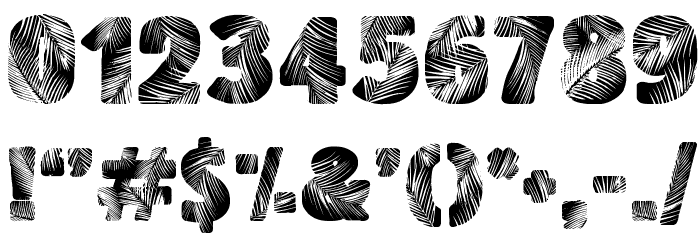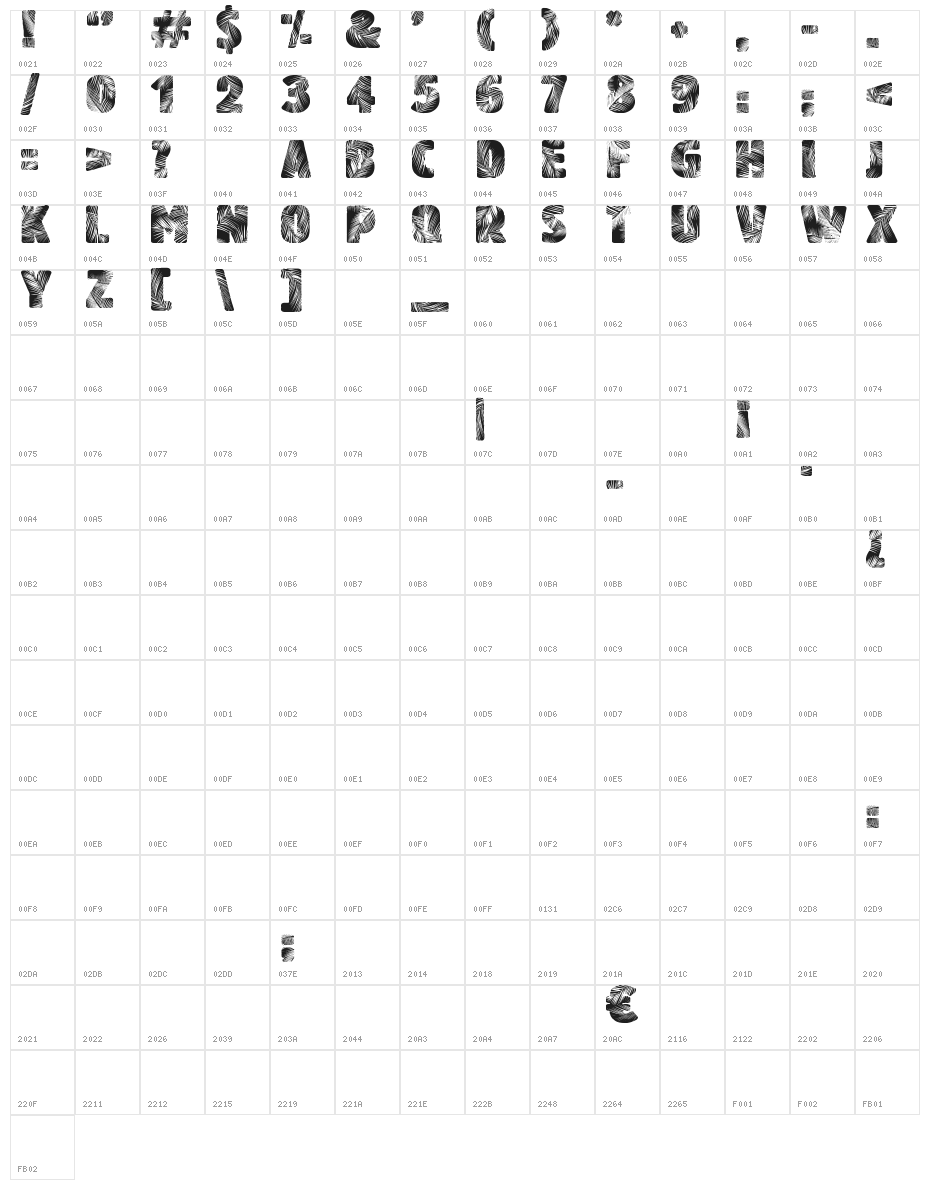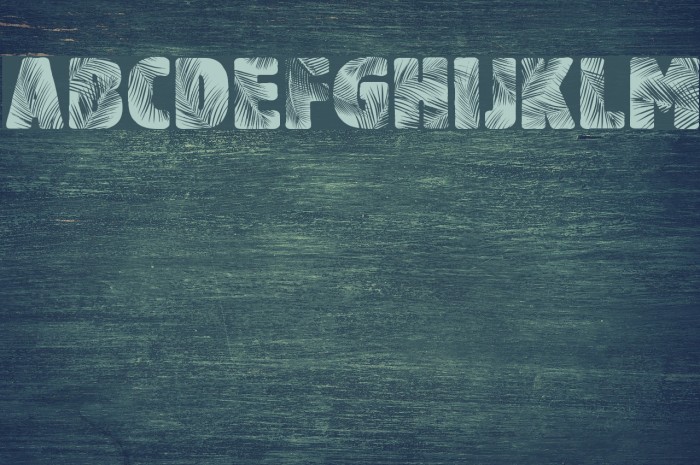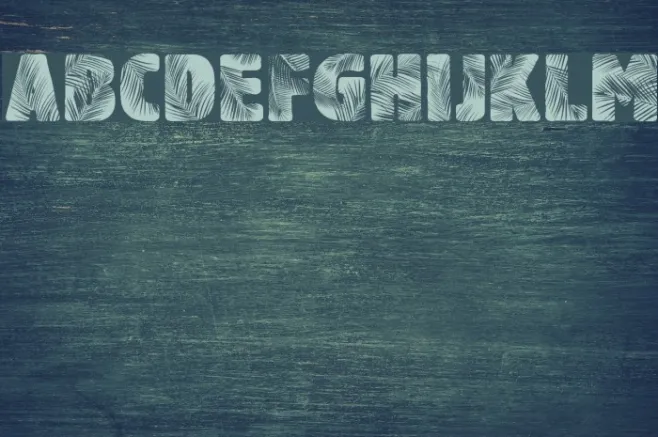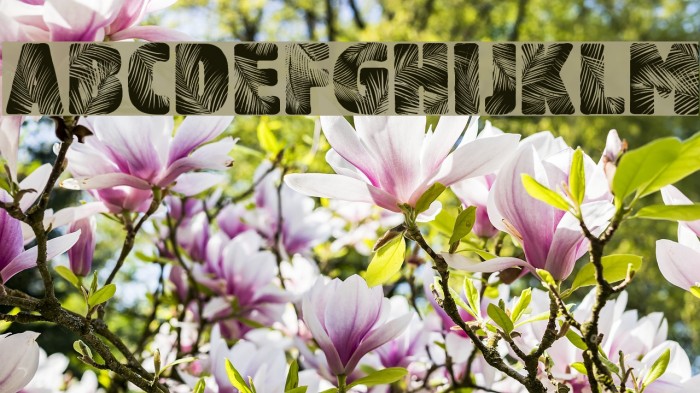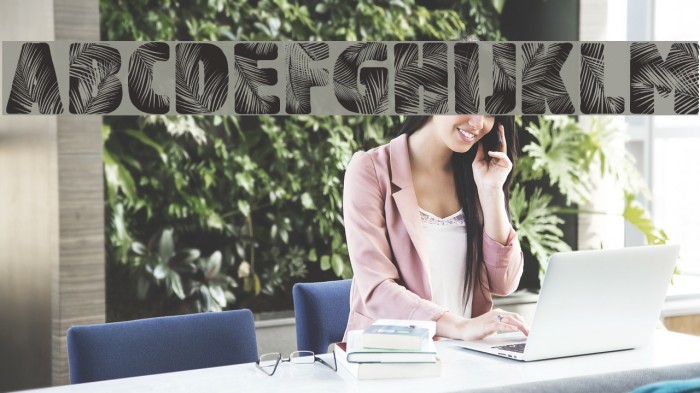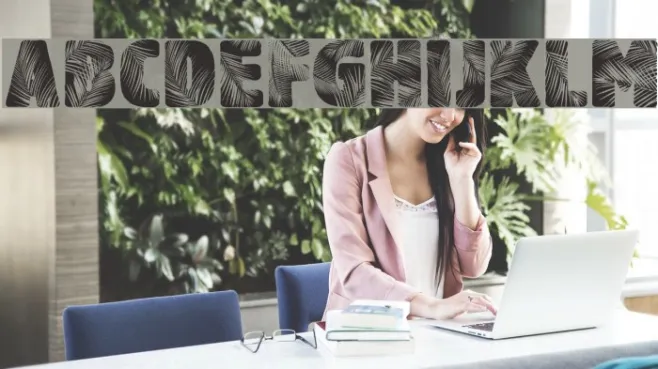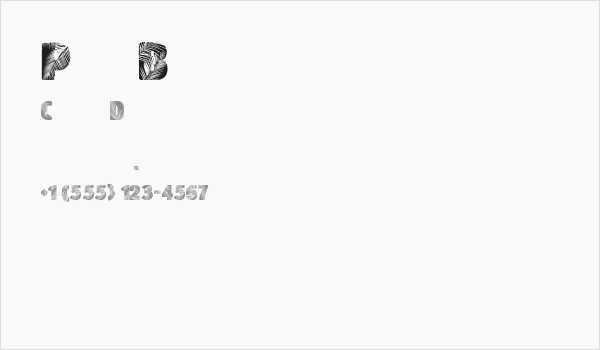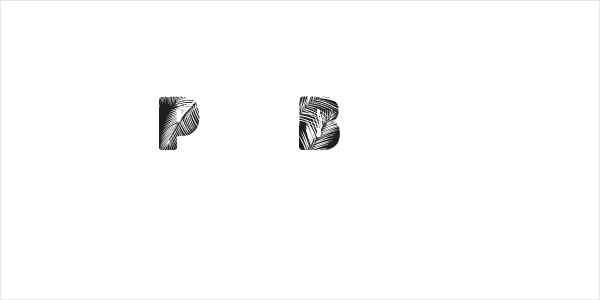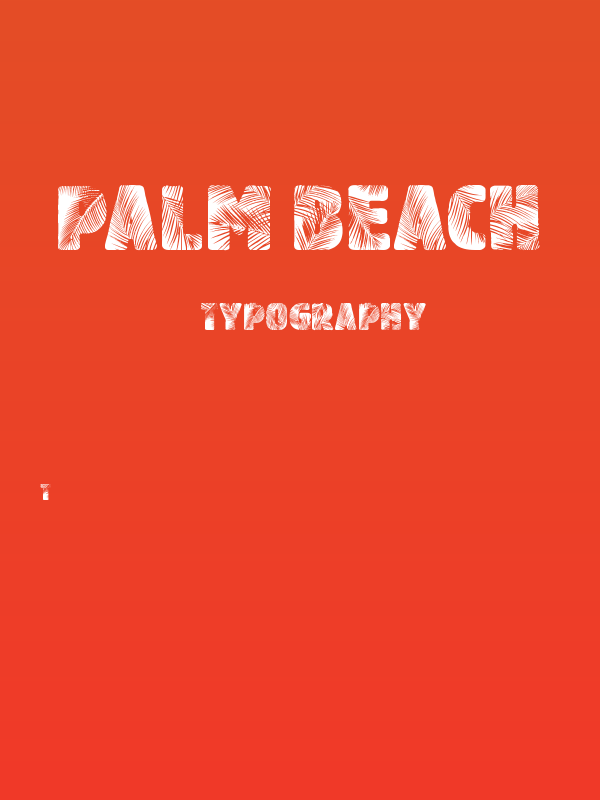
Palm Beach Font
Palm Beach Description
This font features a unique and decorative style, characterized by its intricate palm leaf patterns within each character. The design is bold and eye-catching, making it ideal for projects that require a tropical or exotic theme. Each letter and number is filled with detailed leaf textures, creating a sense of depth and movement. The overall appearance is both playful and sophisticated, suitable for creative and artistic applications. The font's distinctiveness lies in its ability to convey a sense of nature and relaxation, reminiscent of a beach or tropical setting.
| Proposed Projects | Ideal for tropical-themed posters, beach party invitations, branding for eco-friendly products, and artistic designs. |